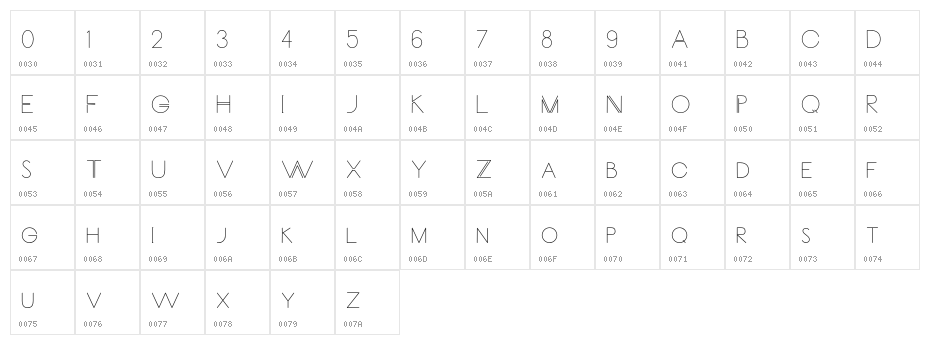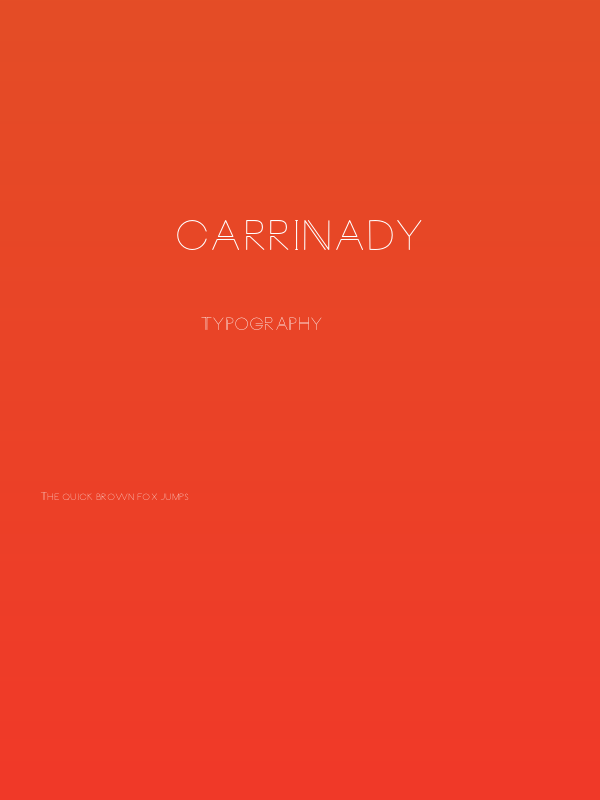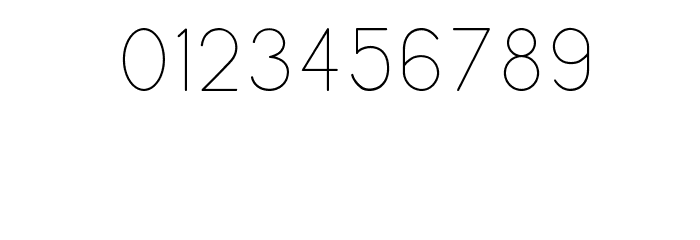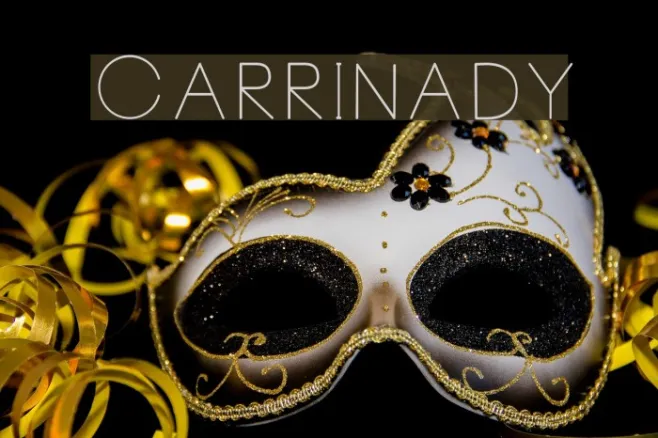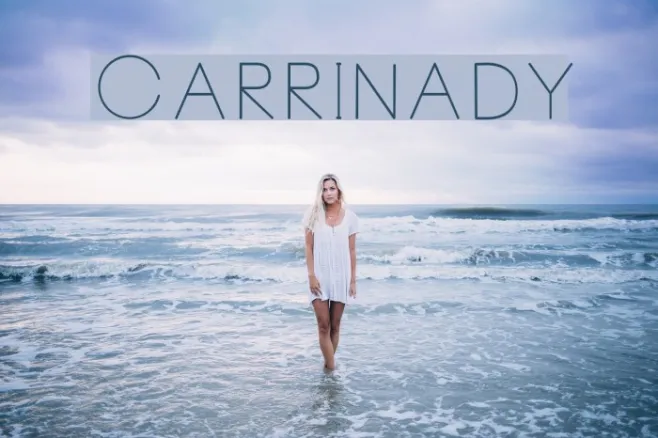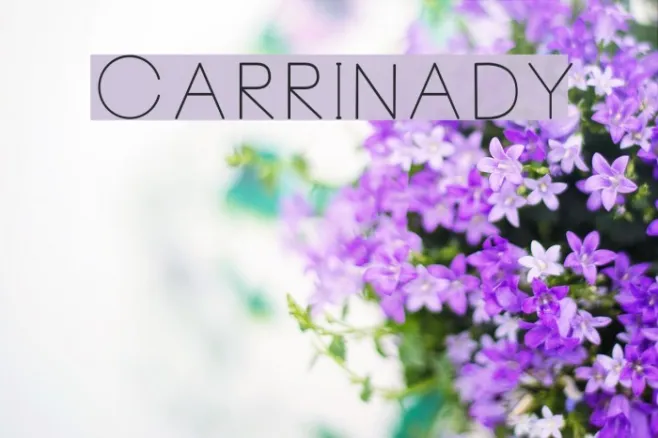
Carrinady Font
Carrinady Description
This font features a sleek and modern design with a geometric structure. The uppercase letters are characterized by clean lines and a minimalist aesthetic, while the lowercase letters maintain a consistent style that complements the uppercase. The numerals are straightforward and align well with the overall design. The font's thin strokes and uniform width give it a contemporary feel, making it suitable for a variety of design applications. Its simplicity and elegance make it versatile for both digital and print media.
| Use Case | Headlines, Logos, Editorial design |
| Proposed Projects | Ideal for branding, editorial design, modern websites, and minimalist posters. |